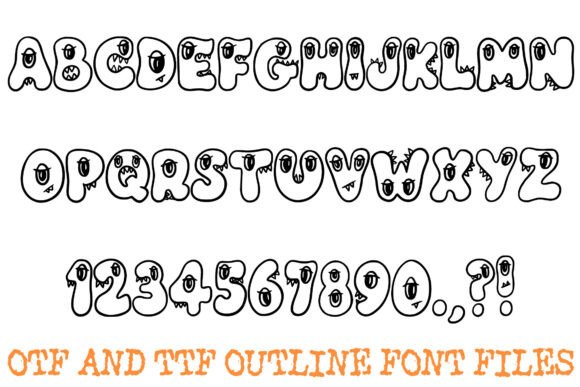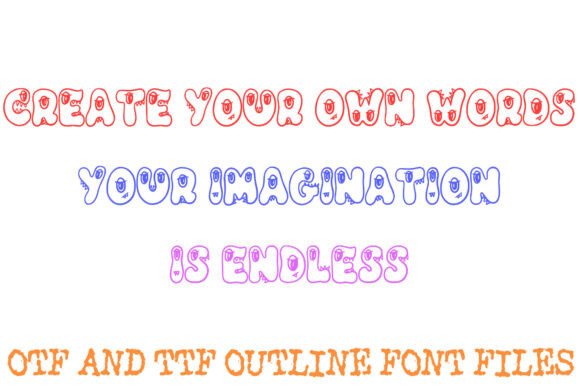
Bring Your Projects to Life with the Friendly Monster Cartoon Font!
Are you looking for a font that adds a playful and whimsical touch to your designs? Look no further than the Friendly Monster Cartoon Font! This delightful display alphabet features soft, puffy bubble letters that are each uniquely “alive,” decorated with quirky googly eyes, mischievous fangs, and sharp little teeth. The result is a font that is sure to bring a smile to anyone’s face and make your projects stand out.
The Perfect Creative Choice for a Variety of Projects
The Friendly Monster Cartoon Font is the perfect creative choice for a wide range of projects, including Halloween party invitations, children’s apparel, whimsical stickers, and engaging classroom materials. Every character acts as its own little creature, making your text feel like a group of friendly beasts. Whether you are designing a “spooky but sweet” birthday banner, fun nursery wall art, or school worksheets, this font adds a huge dose of personality and humor to every word.
Why You’ll Love These Creatures
So, what makes the Friendly Monster Cartoon Font so special? Here are just a few reasons why you’ll love these creatures:
• Whimsical Monster Features: Every letter includes hand-drawn eyes or fangs for an instant character look. This attention to detail is what sets this font apart and makes it so charming.
• Bold Bubble Silhouette: The thick, rounded outlines ensure high visibility and a friendly feel. This makes the font perfect for use on a variety of materials, from posters to stickers.
• Versatile Spooky Style: The Friendly Monster Cartoon Font perfectly balances “scary” and “cute,” making it safe and fun for all ages. This versatility is what makes it ideal for use in a wide range of projects.
Design Possibilities are Endless
The Friendly Monster Cartoon Font is incredibly versatile and can be used in a multitude of design projects. Here are just a few ideas to get you started:
• Halloween Party Invitations: Create spooky but sweet invitations that are sure to delight kids and adults alike.
• Children’s Apparel: Add a playful touch to t-shirts, hoodies, and other clothing items with this fun font.
• Whimsical Stickers: Use the Friendly Monster Cartoon Font to create stickers that are perfect for decorating laptops, water bottles, and more.
• Classroom Materials: Make learning fun with engaging worksheets, posters, and other educational materials featuring this delightful font.
Tips for Using the Friendly Monster Cartoon Font
To get the most out of the Friendly Monster Cartoon Font, here are a few tips to keep in mind:
• Experiment with Colors: The Friendly Monster Cartoon Font looks great in a variety of colors, so don’t be afraid to get creative and try out different palettes.
• Mix and Match: Combine the Friendly Monster Cartoon Font with other fonts to create a unique and eye-catching design.
• Play with Size: The bold bubble silhouette of the Friendly Monster Cartoon Font makes it perfect for use in large and small sizes.
The Friendly Monster Cartoon Font is a unique and versatile font that is sure to bring a playful touch to any design project. With its whimsical monster features, bold bubble silhouette, and versatile spooky style, it’s the perfect creative choice for designers and crafters of all levels. So why wait? Download the Friendly Monster Cartoon Font today and start bringing your projects to life!